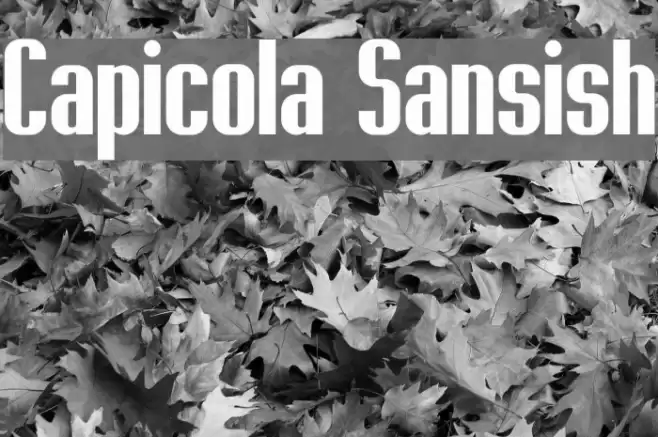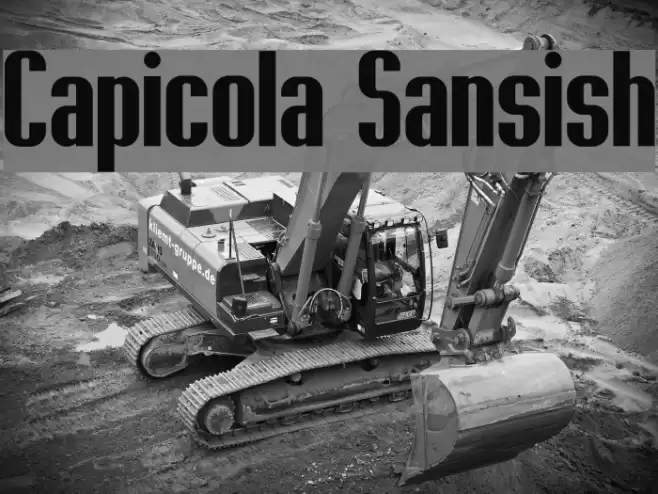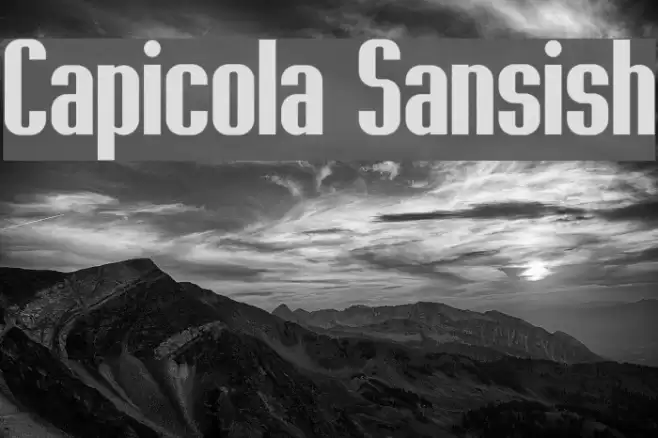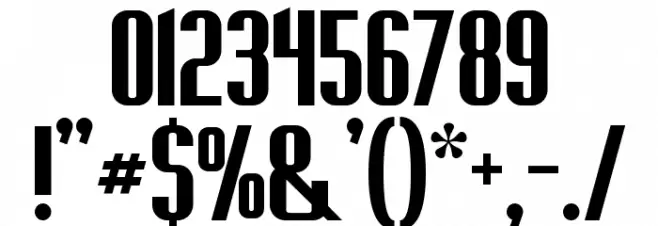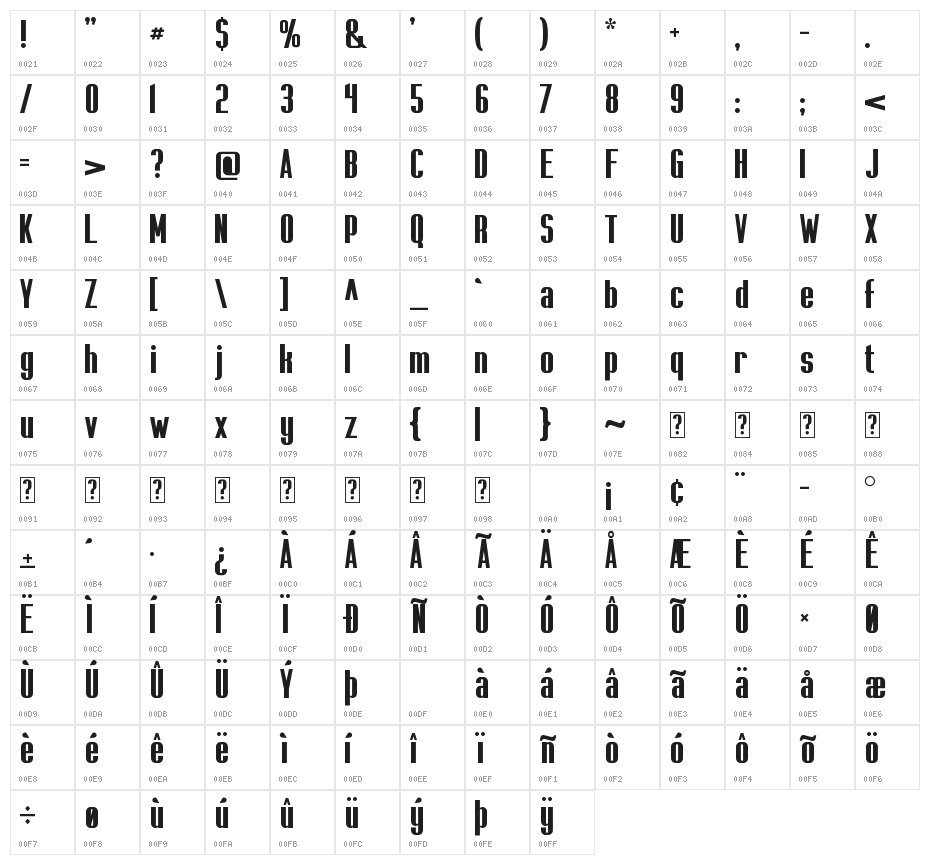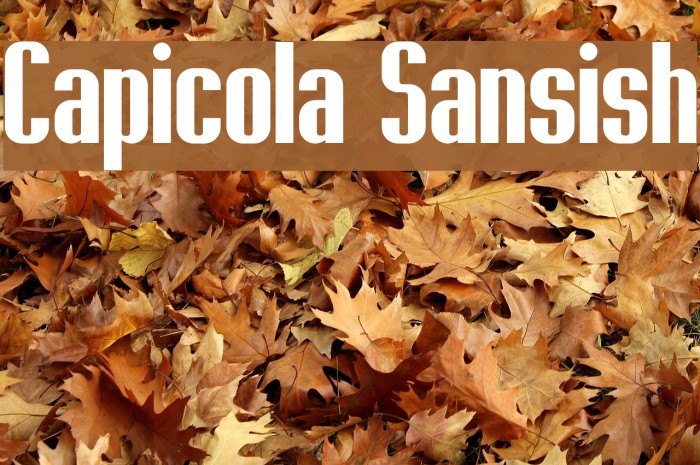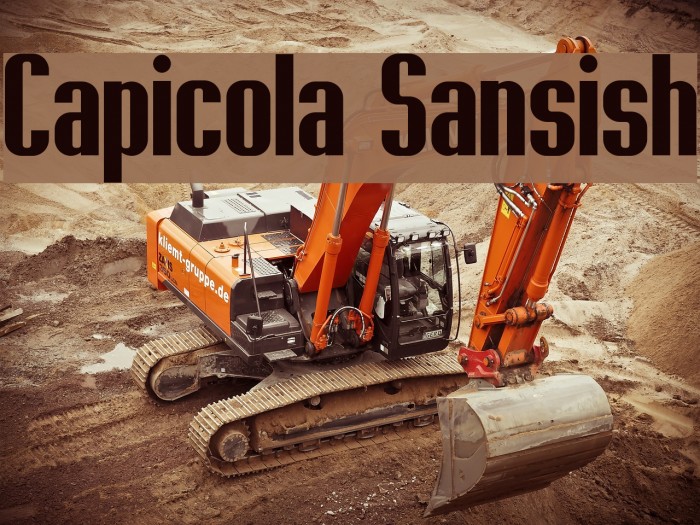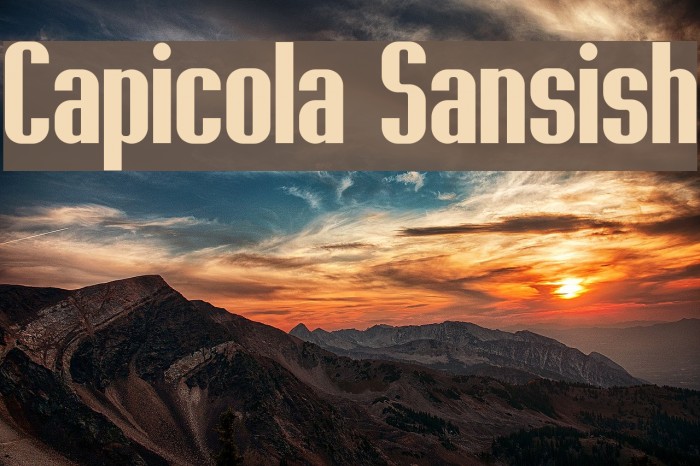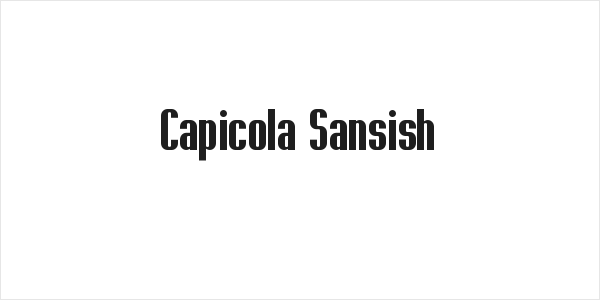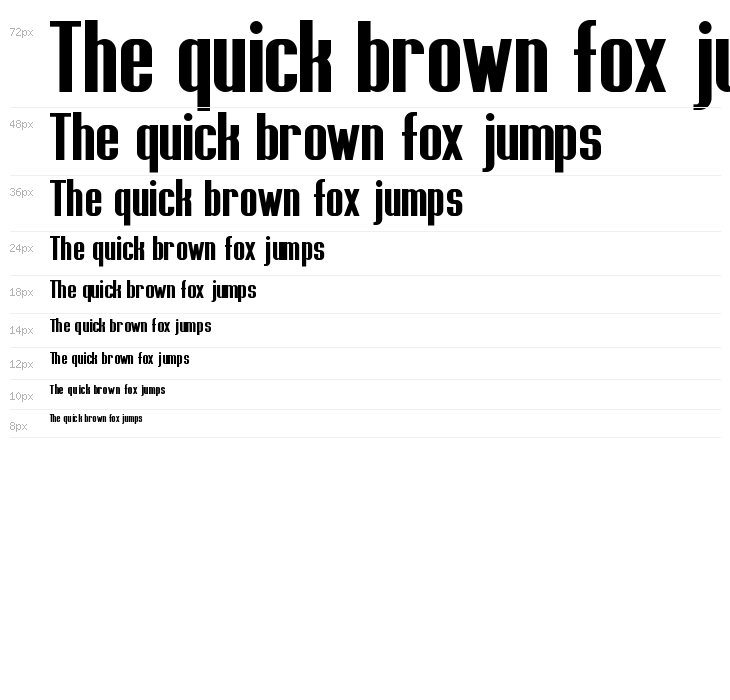
Capicola Sansish Font
Capicola Sansish Description
This font features a bold and impactful design with a strong presence. The characters are tall and narrow, giving it a condensed appearance. The uppercase letters are particularly striking, with a uniform height and clean lines. The lowercase letters maintain the same boldness, ensuring readability while retaining a unique style. The numbers are consistent with the overall design, offering a cohesive look. Special characters are included, matching the bold and condensed style. This font is ideal for making a statement, with its high contrast and modern aesthetic.
A bold, condensed font with a modern and impactful style from Uncategorized fonts.
- Proposed Projects: Ideal for headlines, posters, branding, and any project requiring a strong visual impact.
- Character Spacing: Tight